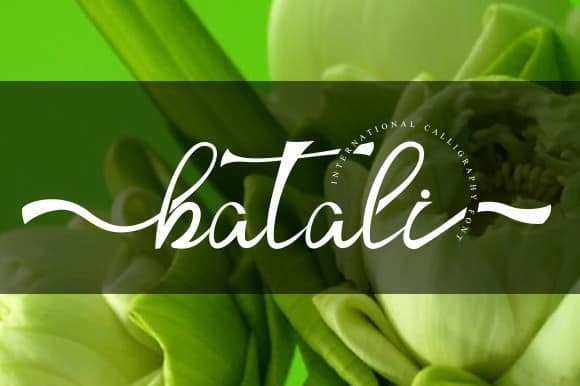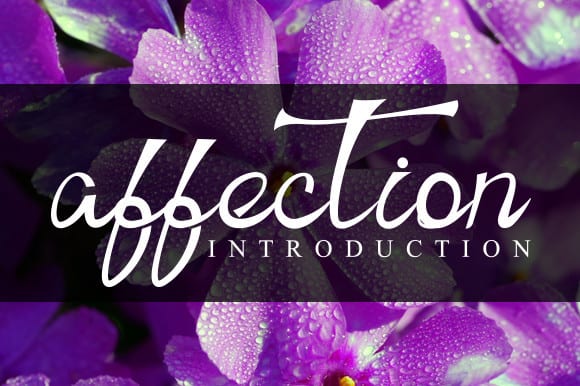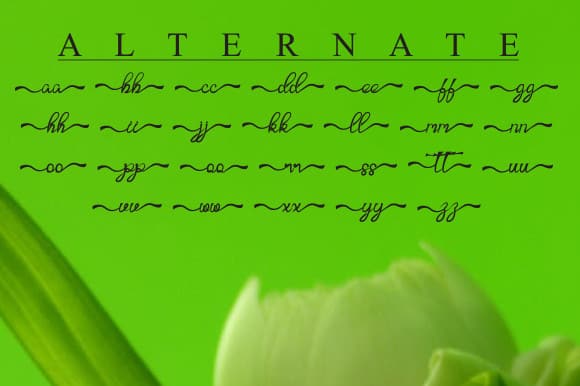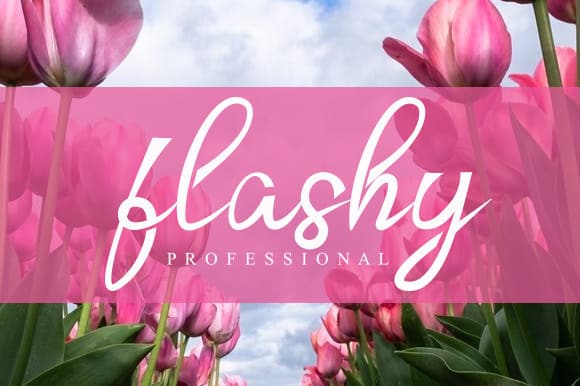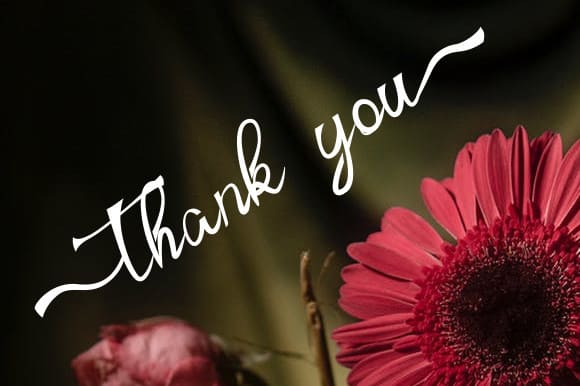
Batali Calligraphy Font is the latest style letters are perfect for wall displays, wedding invitations, social media post logos, advertisements, product packaging, product designs, labels, photography, watermarks, invitations, stationery, and any project that requires taste handwriting.